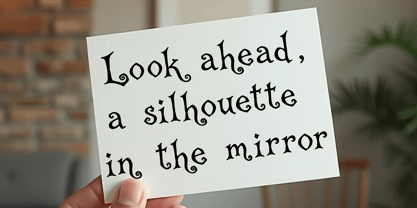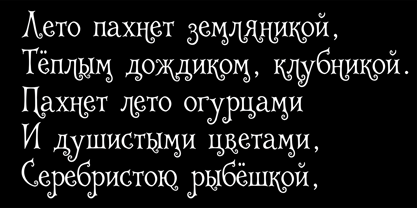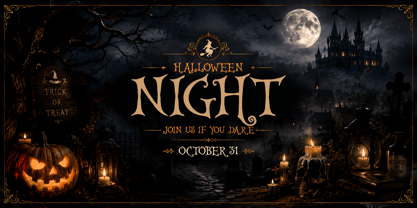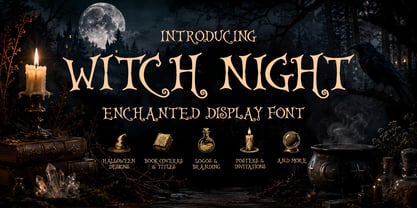
Witch Night
by Makovkin Type
Witch Night is a decorative display font inspired by enchanted forests, ancient folklore, and the mysterious world of magic. Its sharp letterforms, whimsical curls, and handcrafted details create a spellbinding personality that's perfect for eye-catching typography.
Designed to bring a touch of fantasy and dark elegance, Witch Night is ideal for Halloween projects, book covers, movie titles, branding, logos, invitations, posters, packaging, apparel, social media graphics, and any design that calls for a magical atmosphere.
Whether you're creating a mystical brand, a fairy tale adventure, or spooky seasonal artwork, Witch Night transforms ordinary words into captivating visual stories.
Designers: Viktor Makovkin
Foundry: Makovkin Type